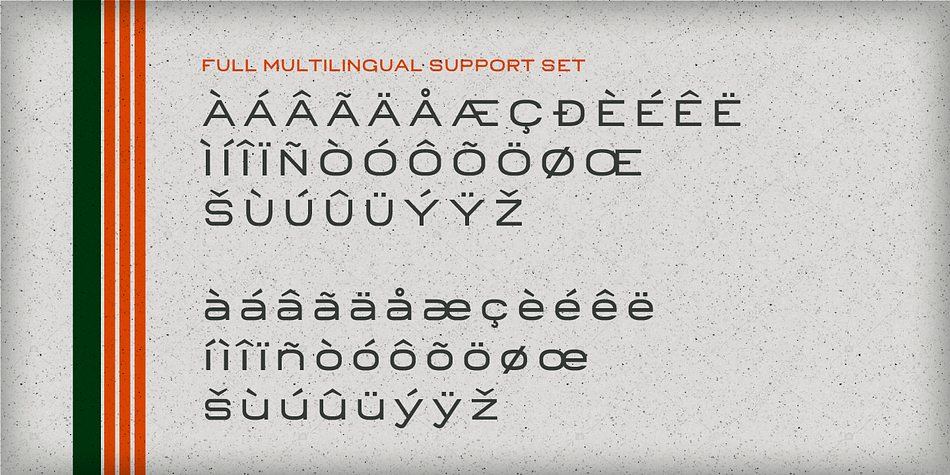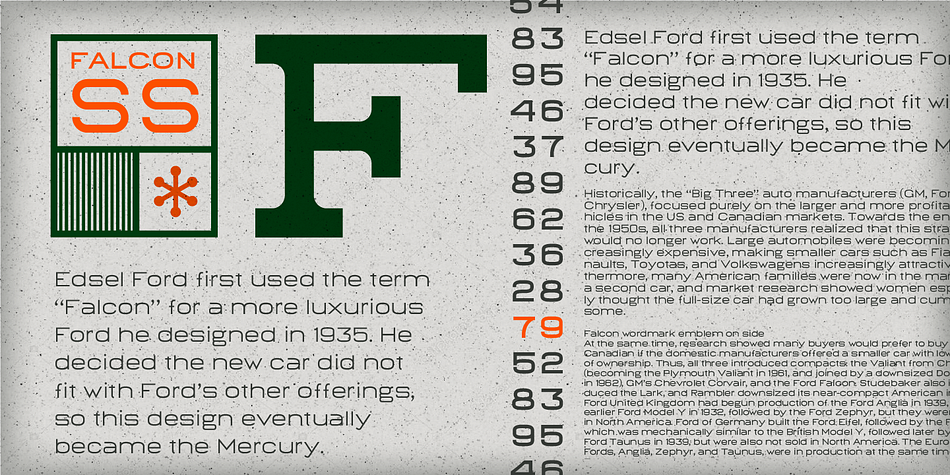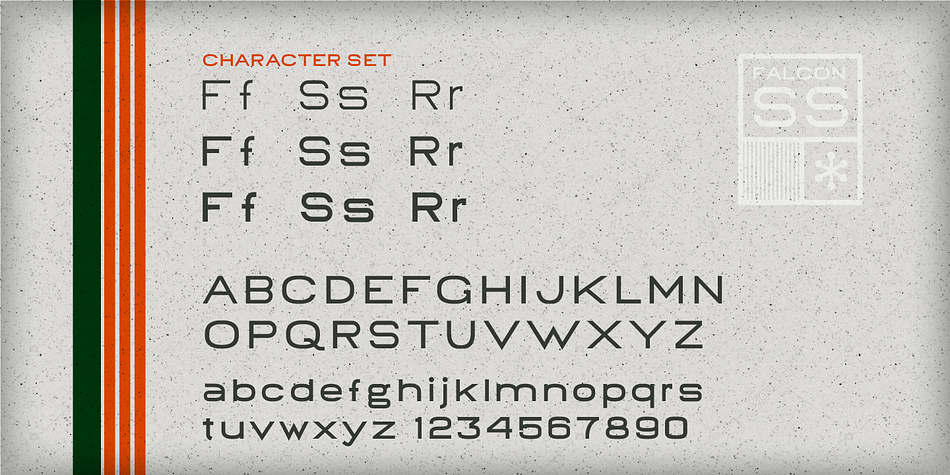
Falcons SS
Designed by Brian Toth, Falcons SS is a sans serif font family. This typeface has six styles and was published by Foundry 73.
Falcon SS is inspired by those type treatments you use to see in the 60s or 70s on home appliances or cars. An elegant vintage typeface with a classic san serif modern feel to it. It comes in three weights, which comes in both extended and regular styles.
**Features:**
• Two styles (Regular and Extended)
• Full Uppercase and Lowercase A to Z character set
• Numbers and mathematical symbols
• Special characters and full accent set
• Kerning Pairs